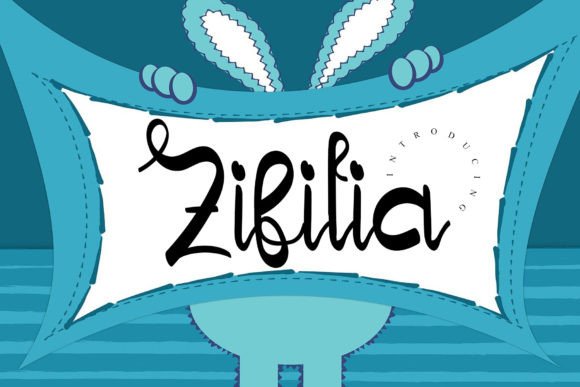
Step into the realm of elegance with Zifilia Font, a script font that captivates the senses. Its graceful curves and enchanting swashes evoke a timeless charm that will leave an unforgettable impression. Zifilia is the perfect font for adding a touch of sophistication to your creations, whether you're a designer, artist, or simply someone who appreciates the beauty of typography.
Indulge in the versatility of Zifilia Font, a font that effortlessly adapts to a multitude of creative projects. From logotypes and corporate identities to apparel, posters, and even games, Zifilia seamlessly blends into any design concept. Its ability to effortlessly enhance any project makes it an invaluable asset for any creative toolbox.
Zifilia Font is the ultimate choice for wedding signs, where elegance and romance intertwine. Its delicate strokes and flowing lines perfectly capture the joyous spirit of a wedding celebration. Zifilia will elevate your wedding signage to a work of art, leaving a lasting impression on your guests and creating memories that will be cherished for years to come.
Unleash your creativity and let Zifilia Font guide you to new heights of design excellence. Its versatility and timeless appeal make it the perfect companion for any project, ensuring that your creations stand out from the crowd. Zifilia is more than just a font; it's an investment in beauty, elegance, and creative freedom.